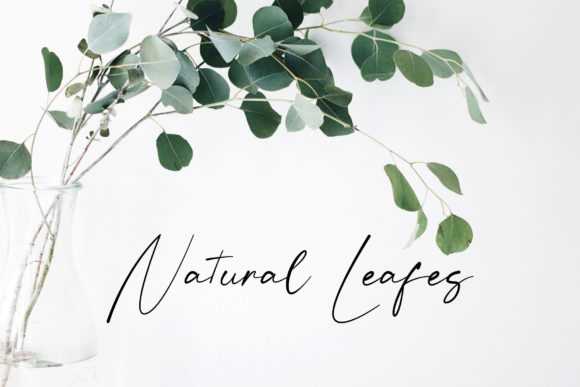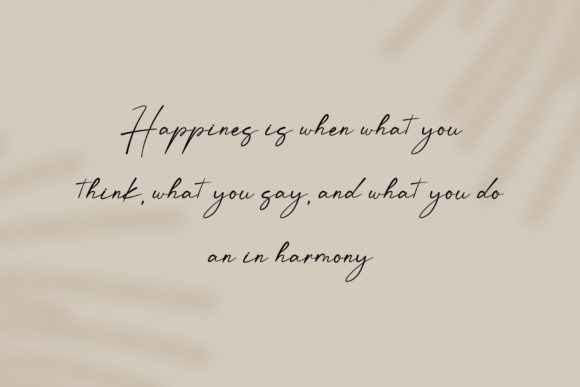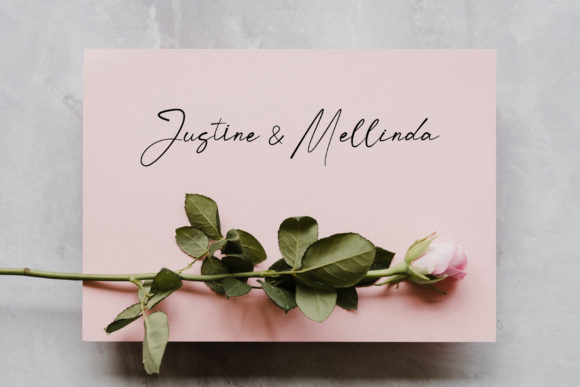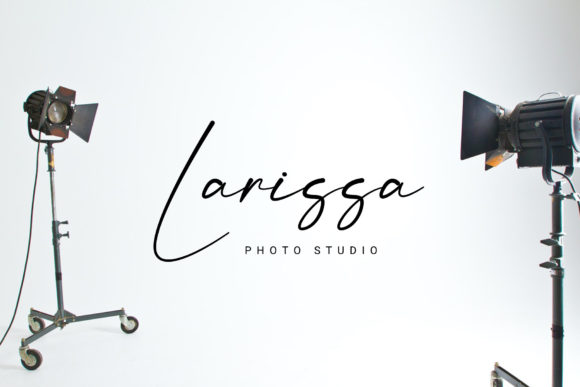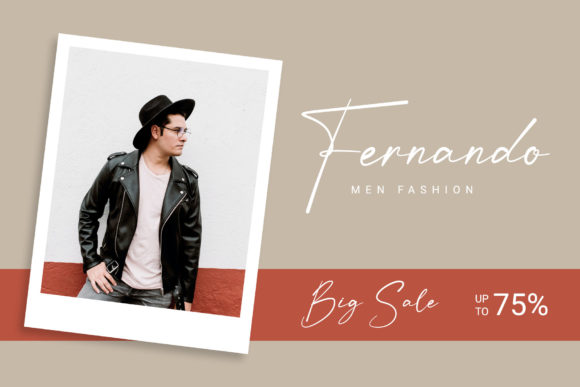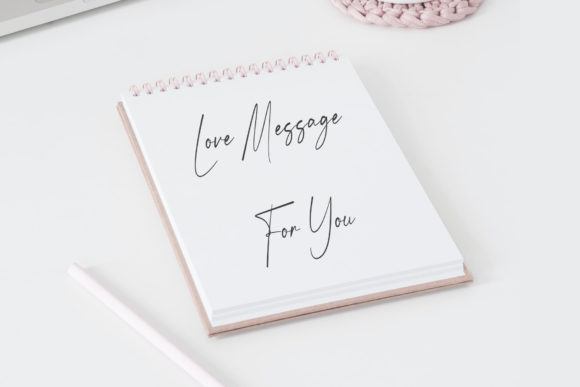
Introduction to First Month Font
Do you remember that moment when you saw a beautifully designed post on Instagram and thought to yourself, ‘I wish I could create something like that’? For many of us, it’s not just about the content, but the way it’s presented that makes all the difference. That’s where the right design resource comes in – and for many designers, the First Month Font is the key to unlocking their creative vision.
This magical script font has been carefully crafted with a touch of elegance, making it the perfect addition to any creative project. With its transparent background and high-quality design, it’s no wonder why designers are falling in love with the First Month Font. Whether you’re working on a DIY project or need a font for your next social media post, this font is sure to elevate your design game.
Key Features of First Month Font
Honest Review: First Month Font
I recently stumbled upon the First Month Font and I’m excited to share my thoughts on this design resource. As a designer, I’m always on the lookout for high-quality fonts that can elevate my creative projects.
Here’s what works well: ✨ The font is incredibly versatile and can be used for a wide range of applications, from digital designs to print materials. The transparent background feature is also a huge plus, making it easy to layer and combine with other design elements.
However, there are a few limitations: ⚠️ The font is only available in a single weight, which might limit its use in certain design contexts. Additionally, the font family is not as extensive as some other popular fonts.
Overall, I’m impressed with the First Month Font and would definitely recommend it to fellow designers. While it may not be perfect, its high-quality design and versatile use make it a valuable addition to any design resource collection.
First Month Font: A High-Quality Design Resource
Tips for Getting the Most Out of First Month Font
Use the font in combination with other design elements, such as graphics and images, to create visually appealing designs. Experiment with different font sizes and styles to add emphasis and create hierarchy in your designs.
First Month Font is perfect for a variety of creative projects, including social media graphics, presentations, posters, flyers, and brochures. It’s also great for creating custom logos and icons, as well as adding a touch of creativity to presentations and documents.